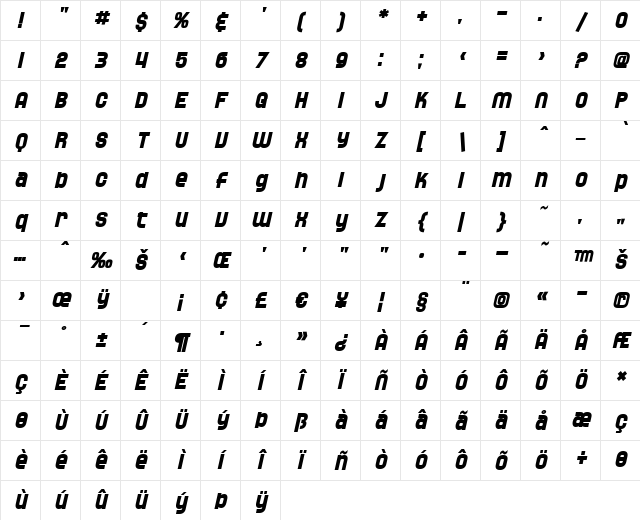
Complete SF Speedwaystar Bold Oblique glyph index. Displaying only characters natively supported by SF Speedwaystar Bold Oblique font.
SF Speedwaystar is a composed and adaptable typeface that performs quietly and consistently across a wide range of design contexts. The slanted form adds forward momentum and visual energy. Its bold stroke weight gives it real presence on the page.
Pro Tip: Use SF Speedwaystar for emphasis, pull quotes, and subheadings where its slanted energy can add rhythm to the layout.